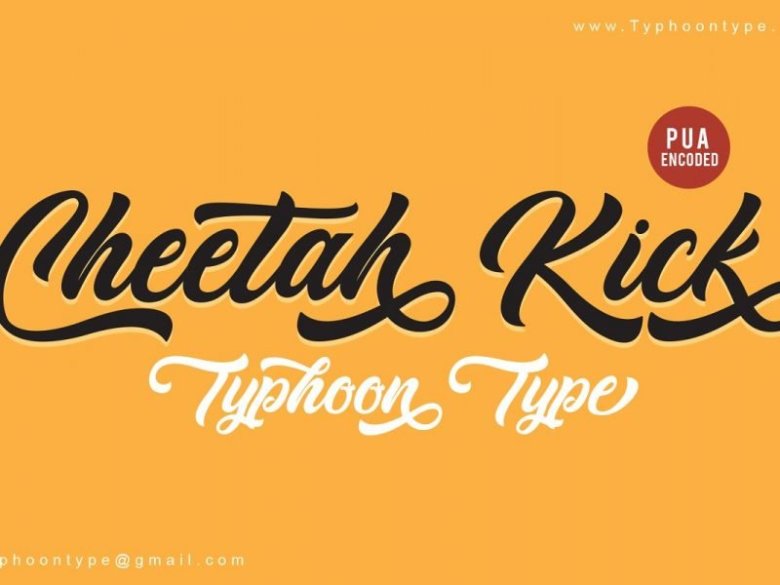
Cheetah Kick Script Font
A stylish calligraphy font – Yes, you can make a fancy typography only with this fonts, without any plugin or action! Introducing Cheetah Kick Font. Cheetah Kick This font perfect for logos, name tag, advertising, product packaging, clothing, social media & greeting cards. This has many opentype features like ligature, stylistic alternate, contextual alternate, swash, etc and support multi language.